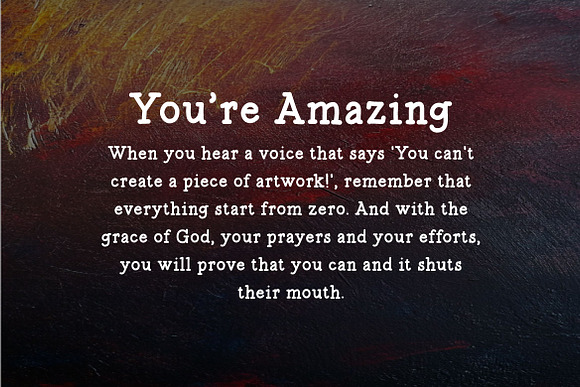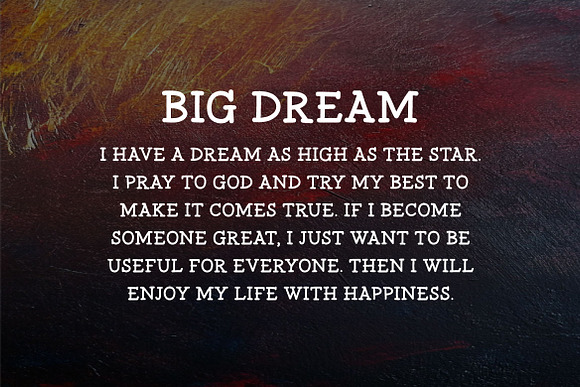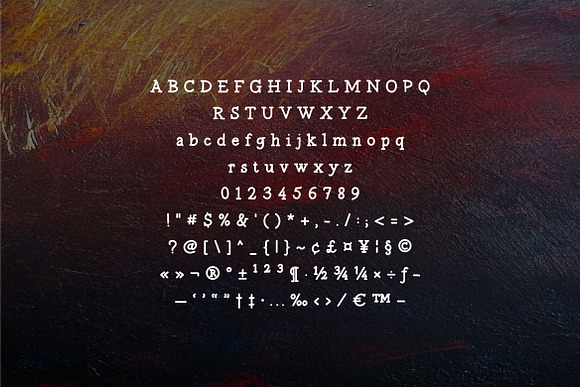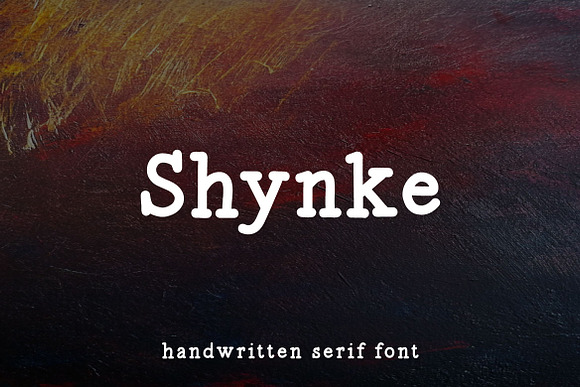
Shynke - Handwritten Serif Font
Shynke is a charming handwritten serif font that blends elegance with a touch of whimsy. Perfect for adding a personal and unique feel to any project, this font features carefully crafted letterforms that balance classic serif elements with a hand-drawn, organic style. Its smooth curves and clean lines make it versatile, suitable for a wide range of design purposes such as branding, logos, invitations, social media graphics, and more. Bring a unique, handcrafted touch to your next project with Shynke – a font that combines classic serif elegance with the charm of handwritten artistry.